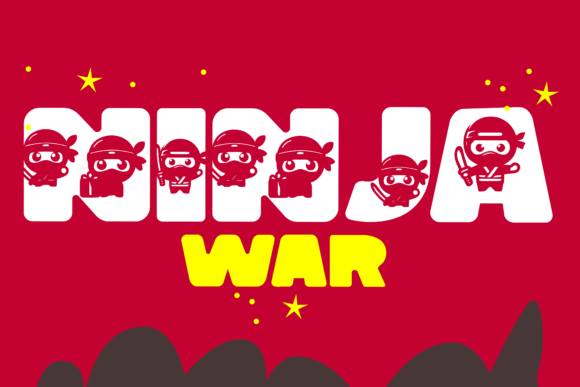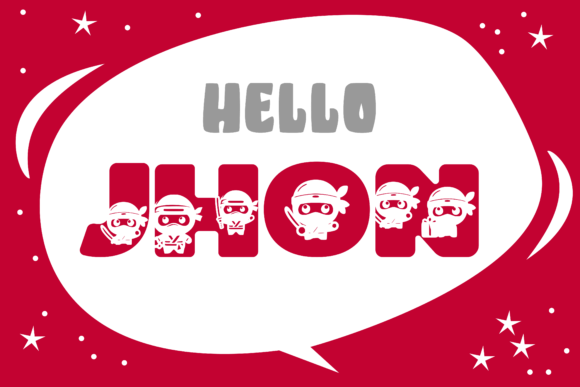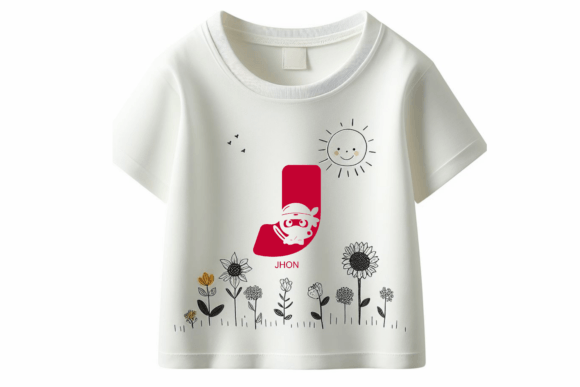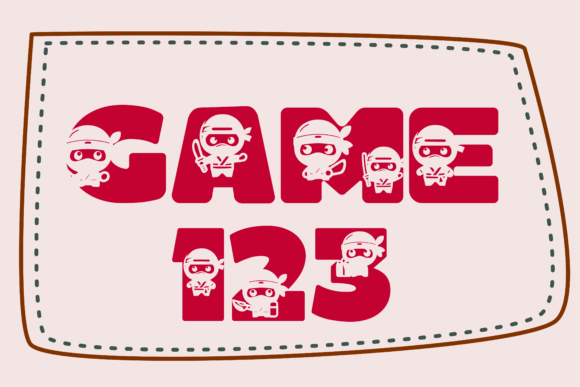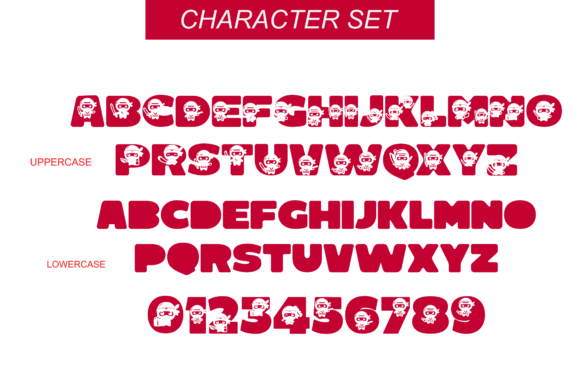
Introduction to Ninja Kids Font
Ninja Kids is a cool, bold, and friendly display font, featuring Ninja kids on each character.
Whether you are using it for cartoon-related designs, childrenโs games, quotes, titles, book covers, posters, or just any creation that requires a whimsical touch, this font is a great choice .
Key Features of Ninja Kids Font
Why Choose Ninja Kids Font?